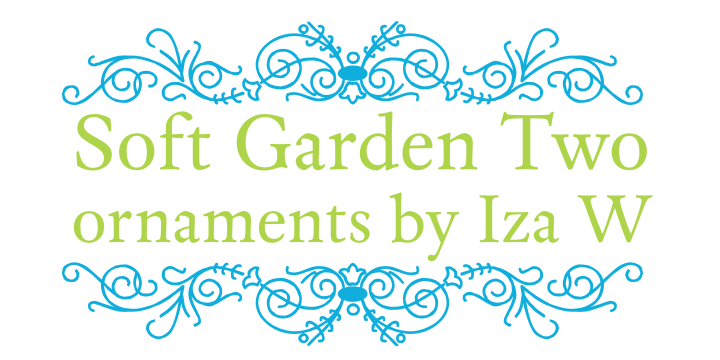
Soft Garden Font is perfect for botanical garden signage, gentle nursery branding, organic flower shop logos, peaceful wellness centers, natural spa marketing, eco-friendly packaging designs, serene nature photography watermarks, tender baby product labels, and tranquil gardening magazines.
What makes Soft Garden Font so exciting is its gentle natural beauty that perfectly captures the peaceful serenity and nurturing essence of flourishing gardens and tender plant growth. This soothing typeface features soft letterforms with organic curves and delicate proportions that evoke the quiet harmony of morning dew on petals and the gentle whisper of leaves in a summer breeze. The font's distinctive character incorporates the calming presence of nature while maintaining excellent readability, making it ideal for wellness brands seeking to communicate tranquility, growth, and natural harmony.
Soft Garden Font includes a nurturing family with Regular, Bold, Light, and Italic variations, each maintaining the signature gentle aesthetic while offering different levels of natural emphasis for various wellness and botanical applications. Additional floral ornaments and garden-inspired decorative elements provide extra creative possibilities for designers working on nature and wellness projects.
Whether you're developing peaceful wellness brands, creating botanical marketing materials, or designing serene garden celebration campaigns, Soft Garden Font Free Download delivers the tranquility and natural authenticity that garden and wellness projects require. Its versatile nature makes it suitable for both digital wellness content and print botanical applications while maintaining consistent peaceful appeal across all nature-loving touchpoints. This exceptional typeface brings genuine garden serenity to your designs, ensuring your message communicates peace and natural beauty that resonates with audiences who seek tranquil spaces and appreciate design that honors the gentle healing power of gardens and natural environments.